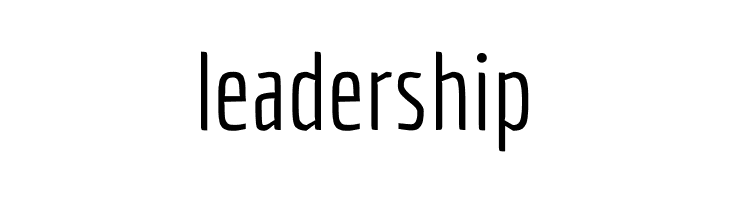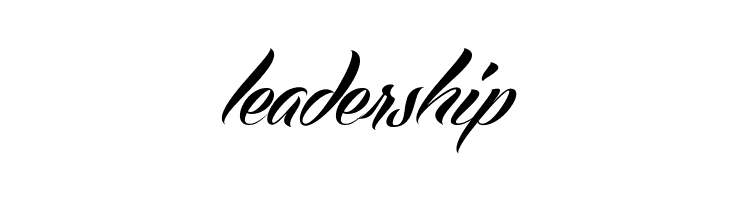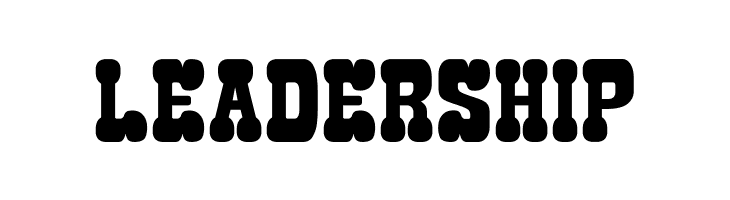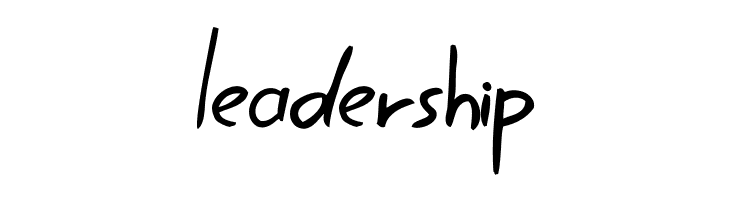
A bold, italic 3D font with a distressed, dynamic style.
A bold, distressed 3D font with a rugged, stone-like appearance.
A bold, distressed font with a rugged, grunge-like aesthetic.
A bold, italic, distressed font with a grunge aesthetic and dynamic style.
A bold, distressed, and condensed font with a rugged, edgy aesthetic.
A bold, distressed, condensed italic font with a rugged texture.
A bold, distressed font with a grunge aesthetic and expanded width.
A bold, distressed, and italic font with an expanded width for dynamic designs.
A bold, distressed font with a unique horizontal gradient effect.
A bold, italicized font with a gradient effect and textured horizontal lines, ideal for dynamic designs.
A bold, italicized font with a distressed, grunge aesthetic.
A bold, distressed font with a dynamic, edgy style.
A bold, distressed font with a rugged, chaotic appearance.
A bold, distressed italic font with a dynamic, edgy style.
A bold, distressed font with a grunge aesthetic and dynamic rotation.
A decorative blackletter font with intricate flourishes and high contrast.
A classic blackletter font with ornate, medieval-inspired design.
A dynamic handwritten font with fluid strokes and a casual, energetic style.
A lively and energetic handwritten font with fluid strokes.
An elegant italic typeface with dynamic slant and balanced contrast.
A tall, elegant serif font with sharp serifs and modern appeal.
A modern, condensed sans-serif font with a clean and elegant style.
A modern, clean, and slightly condensed font with medium contrast.
A modern, bold, and italicized font with a sleek and slightly condensed design.
A sleek, modern italic font with narrow, elongated characters and medium contrast.
A modern, bold italic font with a sleek, condensed design.
A modern, narrow sans-serif font with clean, uniform strokes.
A bold, Western-inspired font with thick, rounded strokes and a vintage charm.
A bold, italicized font with a modern, dynamic style and medium contrast.
A modern, clean sans-serif font with sleek, rounded characters.